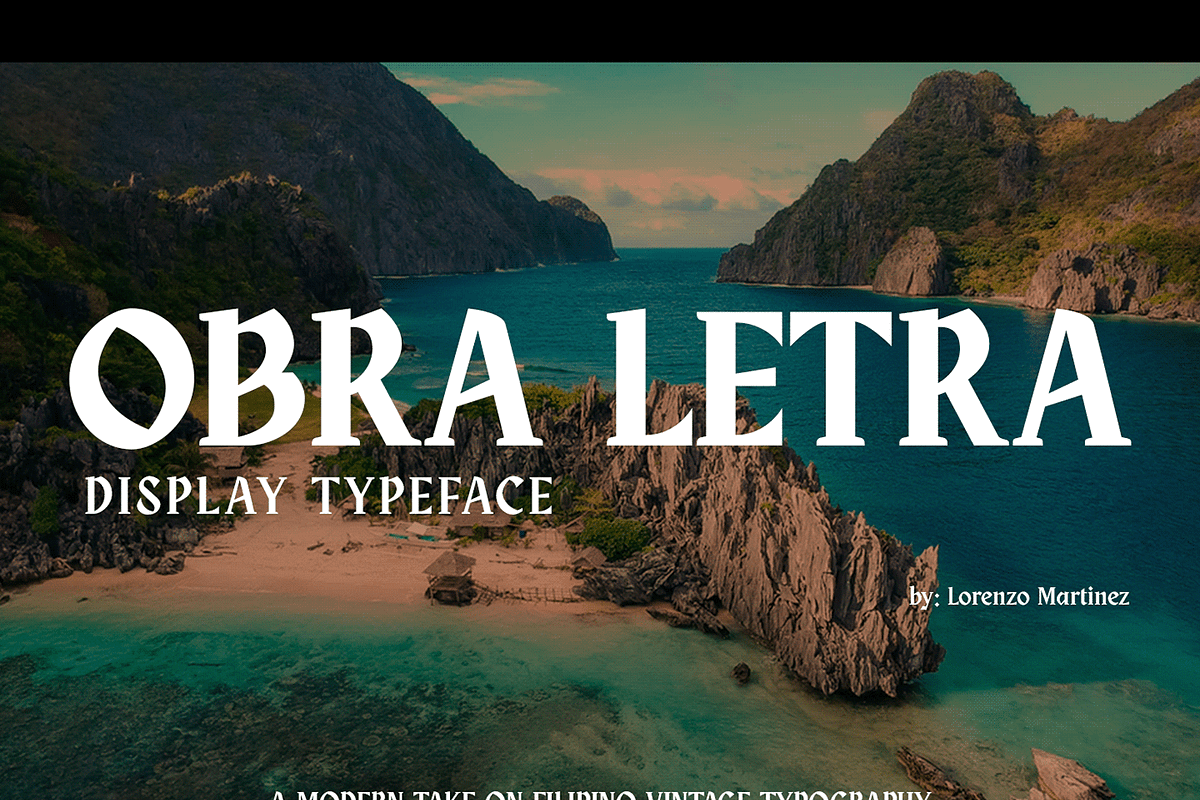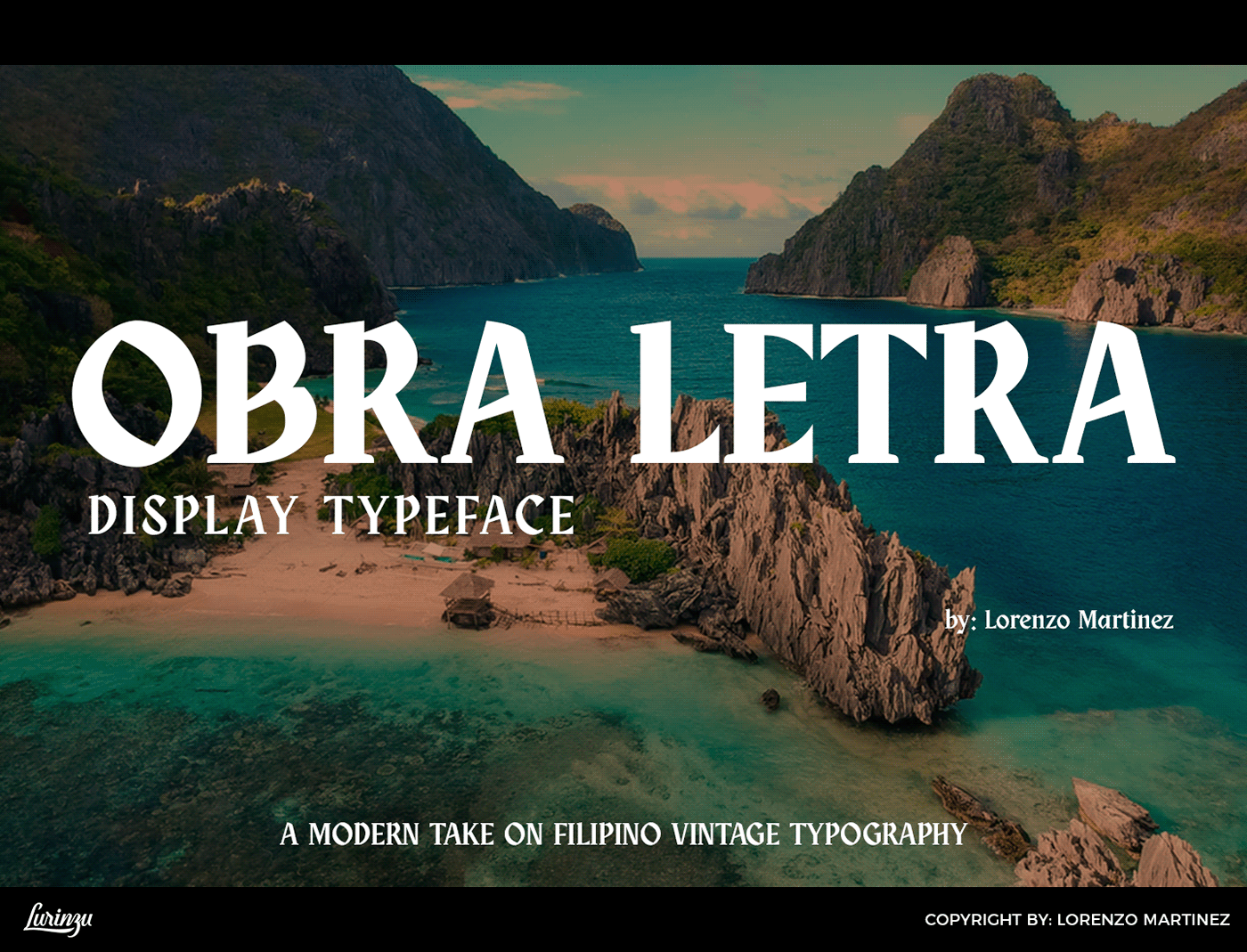
Obra Letra- Vintage Typeface
"Obra Letra" is a vintage display typeface that pays deep homage to vintage Filipino literature types.
Obra Letra is a play on filipino words, where "OBRA" means "Work of art" and "LETRA" means "Letters".It is best used when you want to imply authority, heritage and personality in your designs.
- This font includes letters, numbers, multilanguage support, dozens of alternate letters, and ligatures.